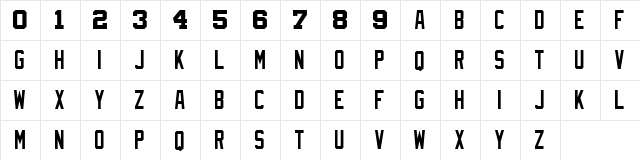
NBA Spurs Regular
Design Context for NBA Spurs Typeface
NBA Spurs is a composed and adaptable typeface that performs quietly and consistently across a wide range of design contexts.